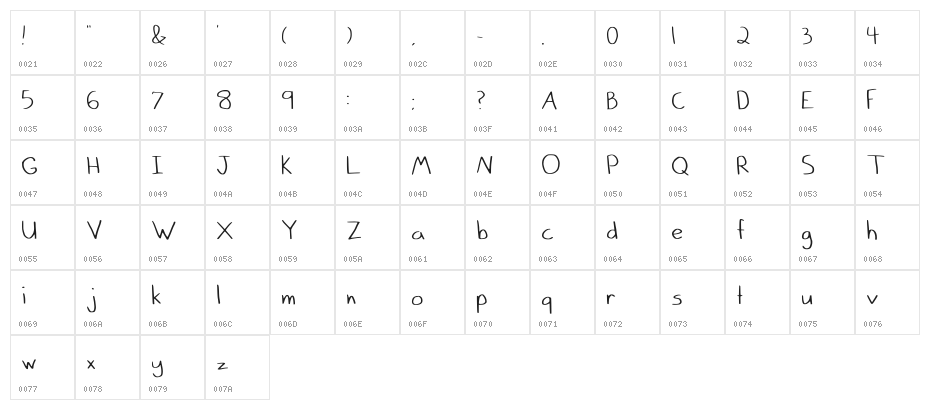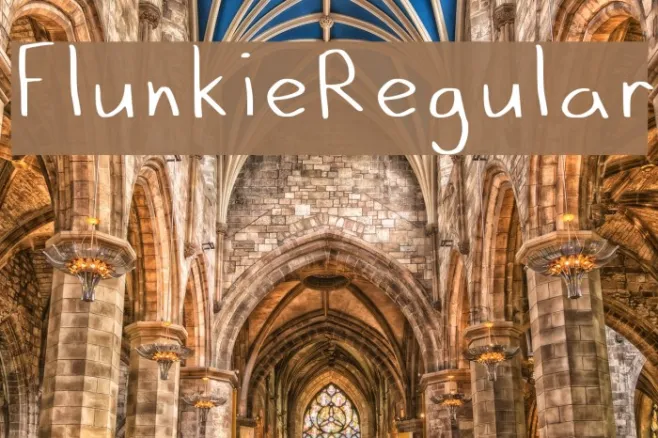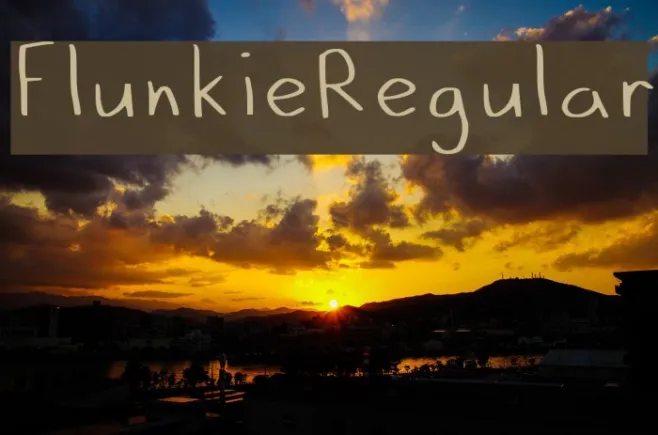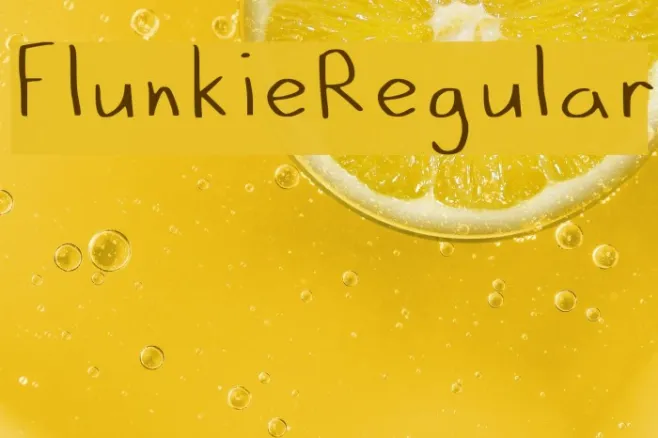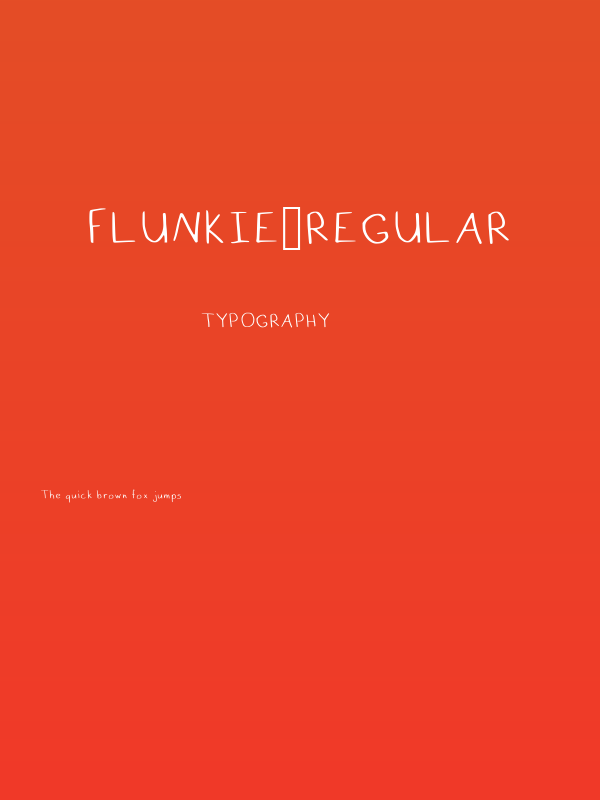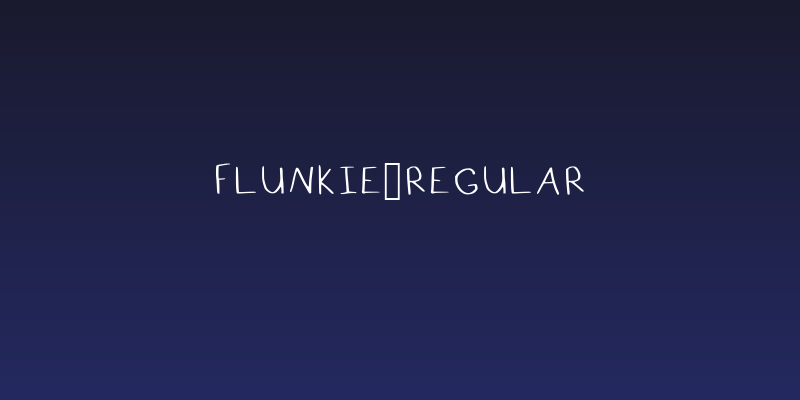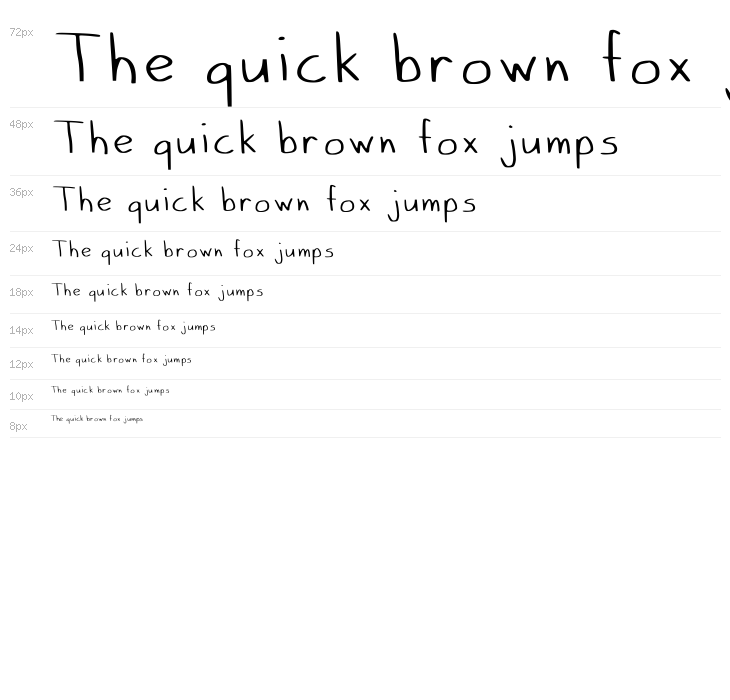
Flunkie_Regular Font
Flunkie_Regular Description
This font features a playful and informal handwritten style, characterized by its irregular strokes and casual appearance. The letters are slightly uneven, giving it a natural and organic feel, reminiscent of a personal note or doodle. The uppercase and lowercase letters maintain a consistent style, with rounded edges and a slight tilt that adds to its whimsical charm. The numerals and special characters follow the same playful design, making it suitable for projects that require a friendly and approachable aesthetic.
| Proposed Projects | Ideal for children's books, greeting cards, casual invitations, and playful branding projects. |